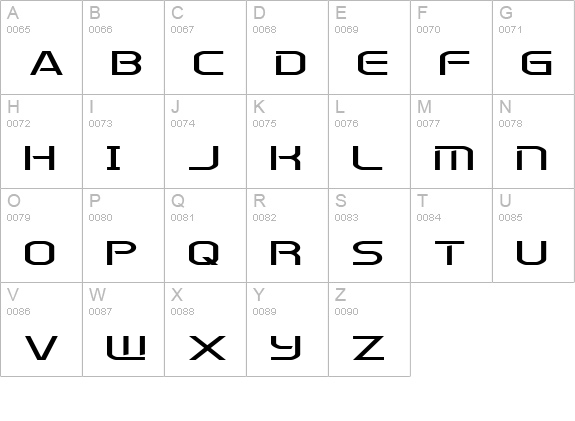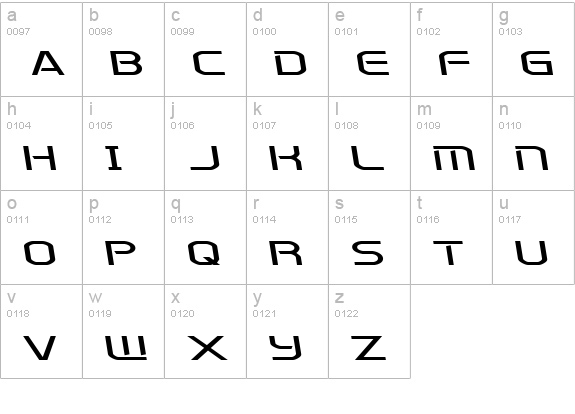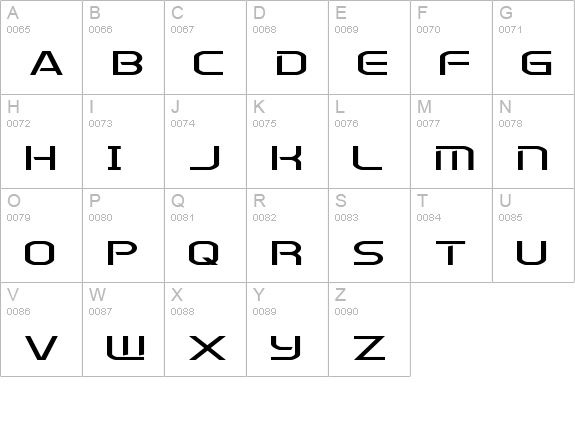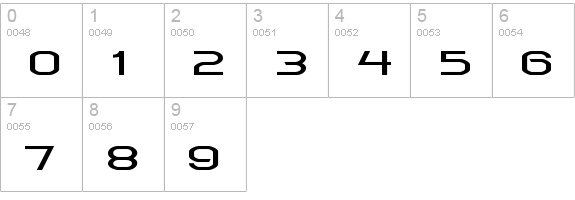
Kometenmelodie 2 Font Details
Kometenmelodie 2 font is a modern and sleek typeface that exudes elegance and sophistication. Its clean lines and stylish curves make it perfect for a variety of design projects, from branding to editorial layouts. The font's unique design gives it a distinct personality that will make your work stand out. What sets Kometenmelodie 2 font apart is that it is not only visually stunning, but also completely free to download. You can easily access this gorgeous font at FontsMarket.com, where it is available for free download. Whether you're a designer looking to add a touch of class to your projects or a creative professional in need of a versatile typeface, Kometenmelodie 2 font is the perfect choice. Download it now and elevate your designs to the next level.